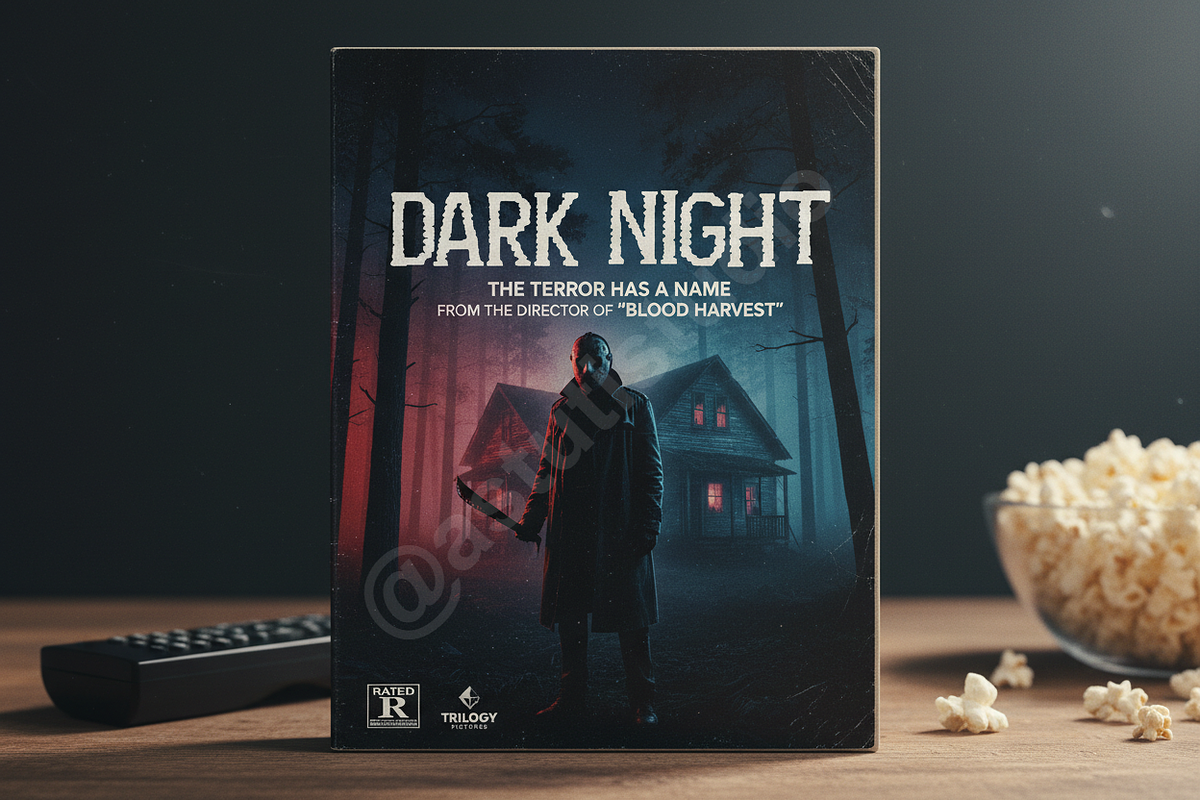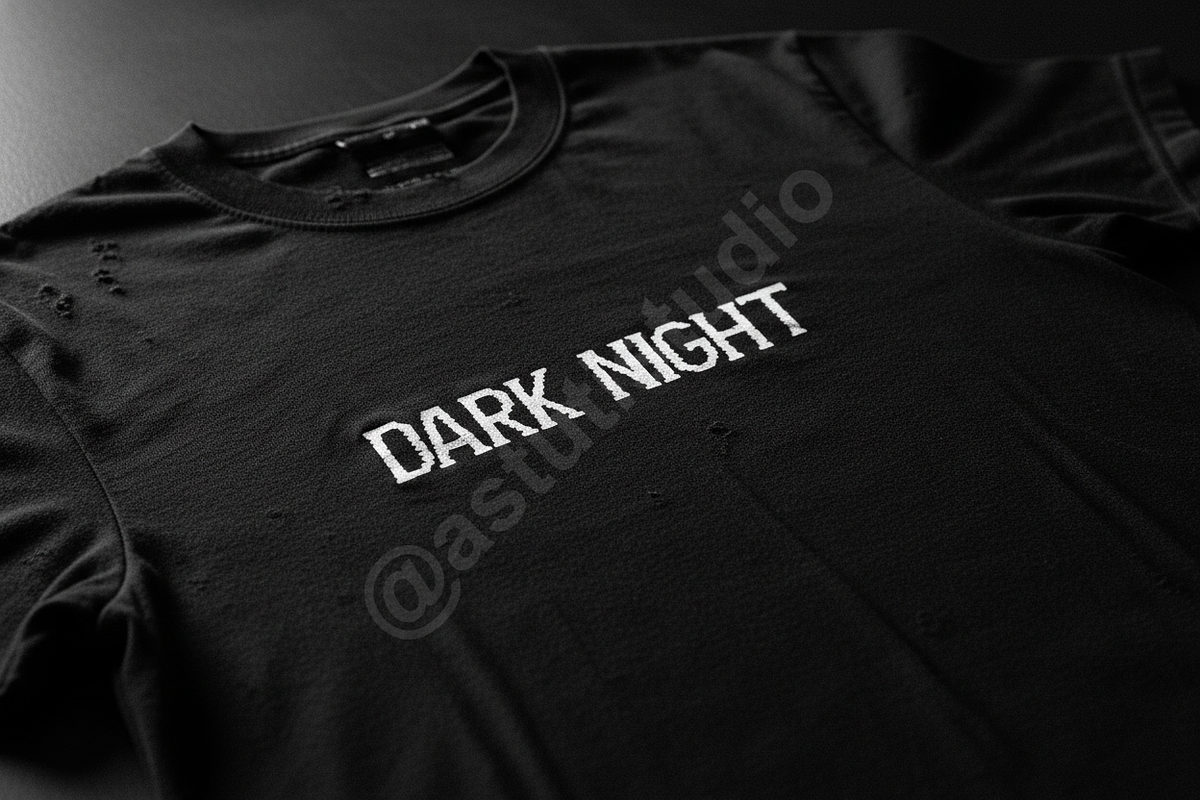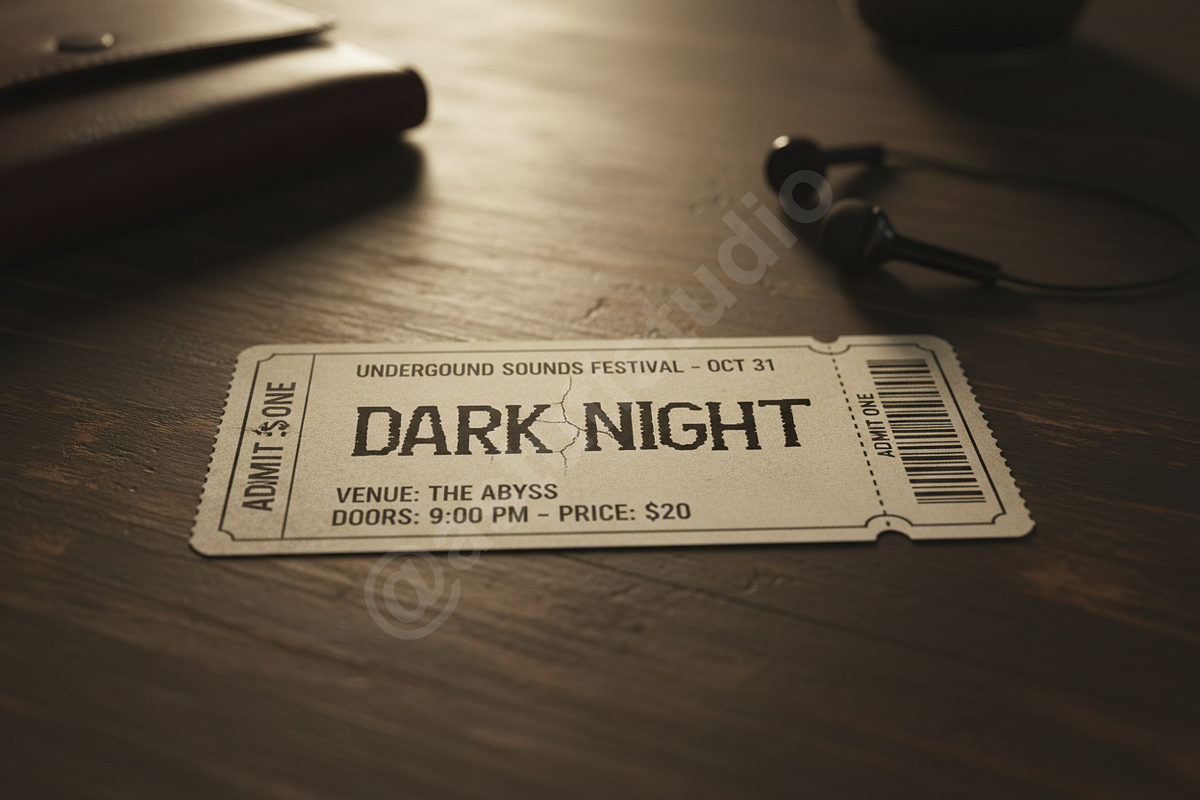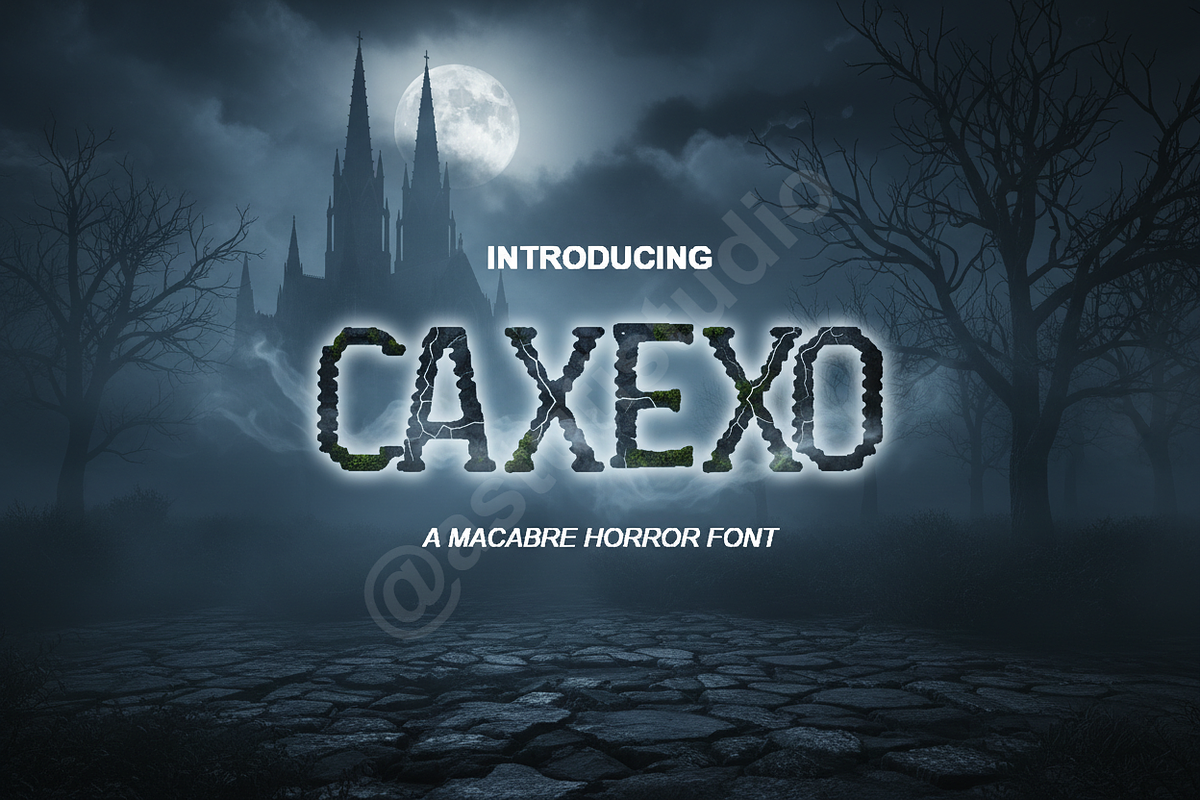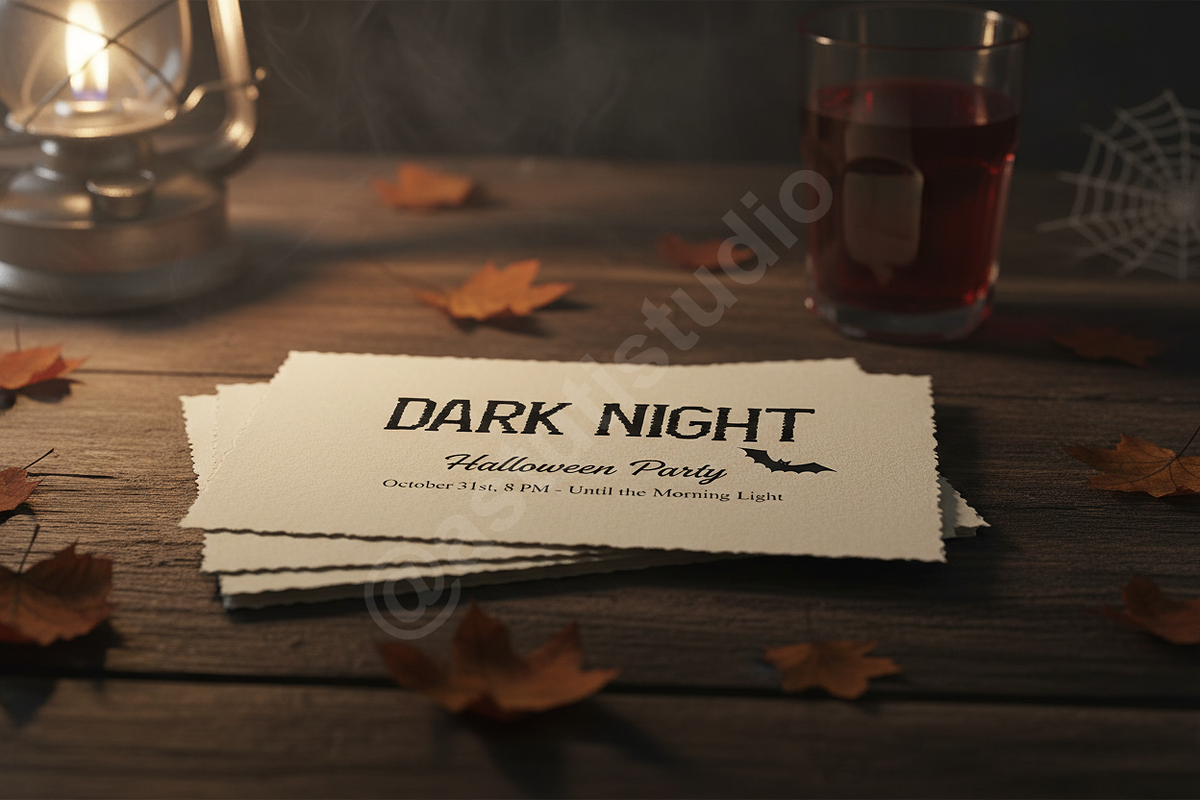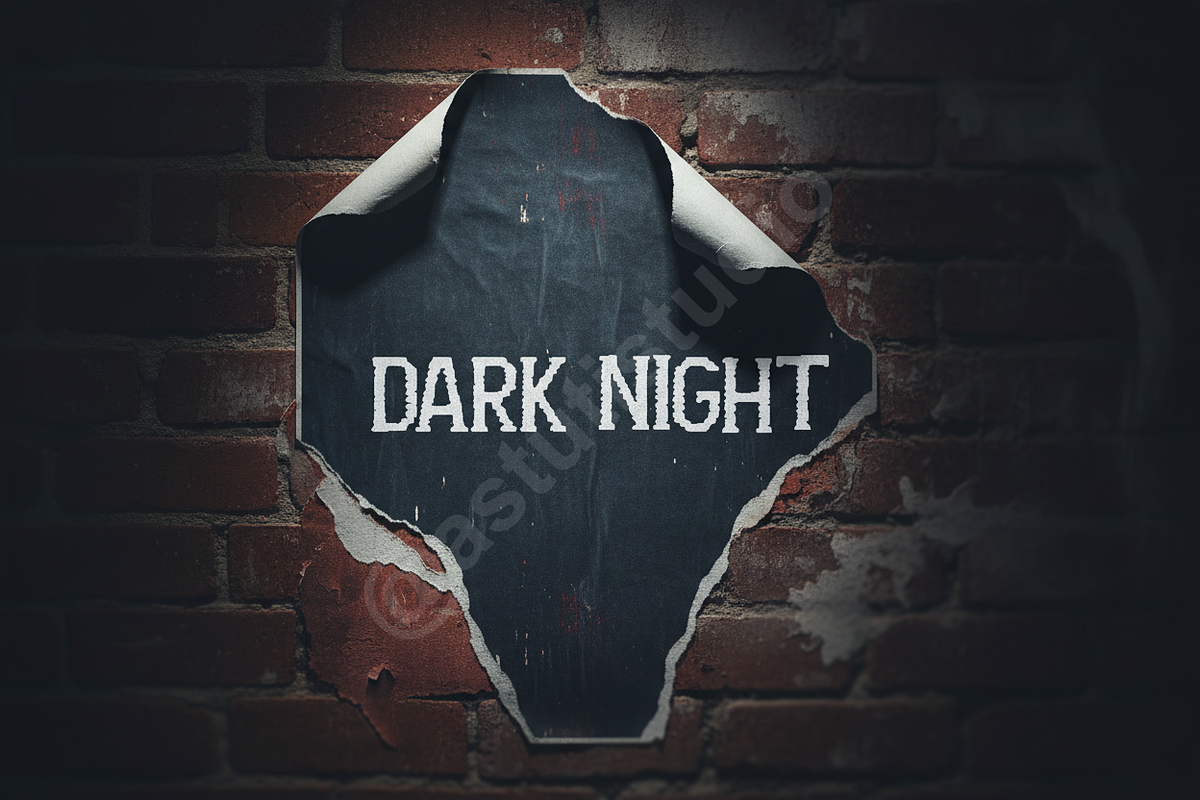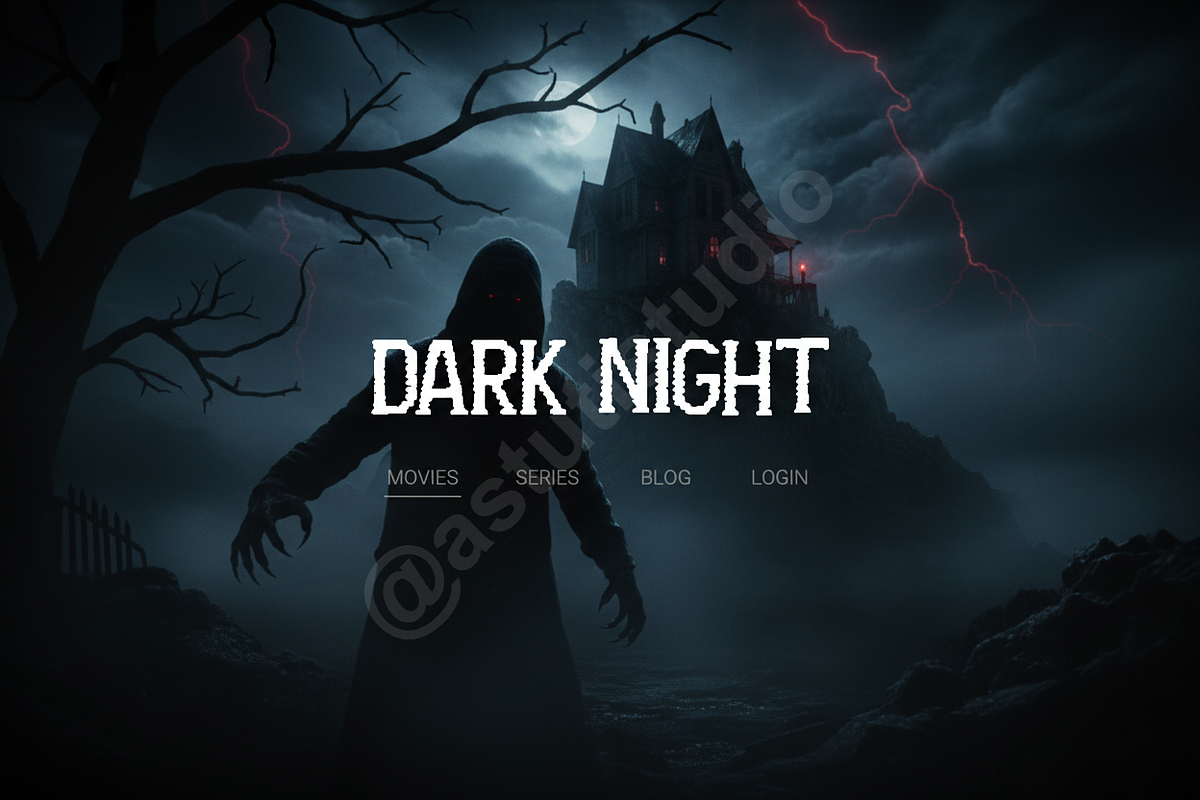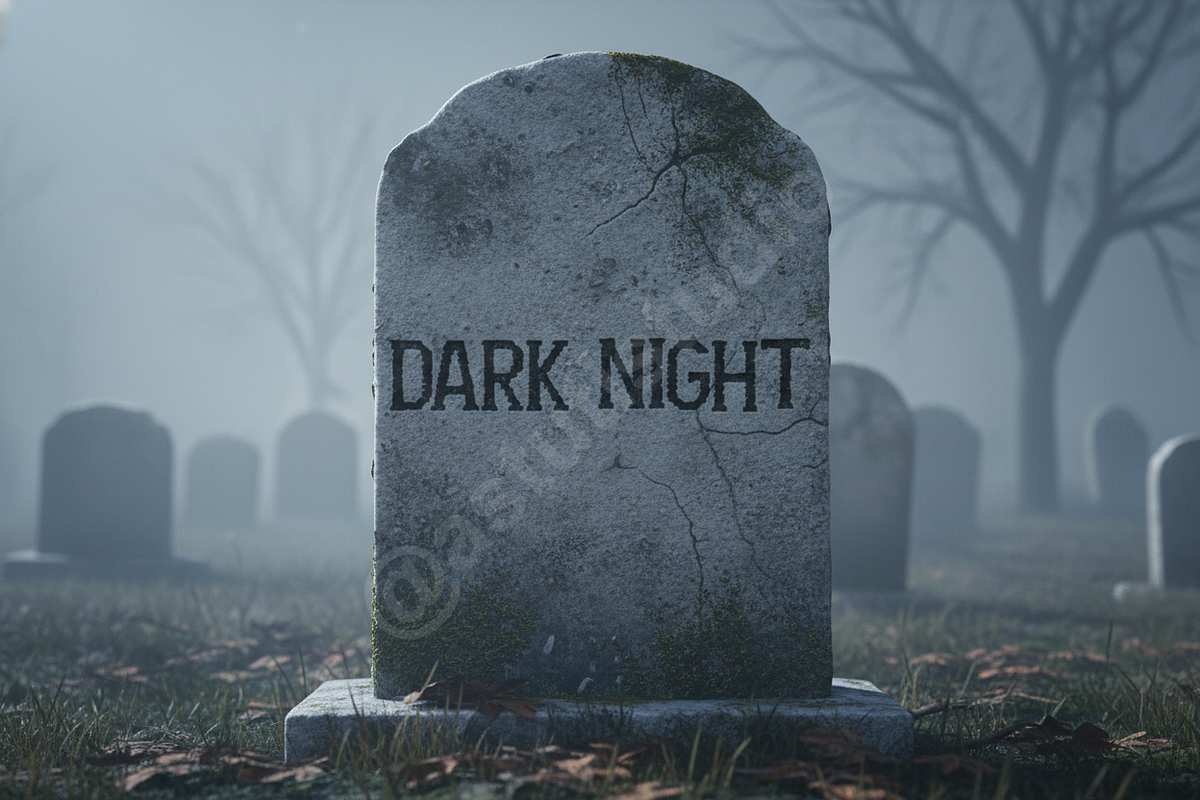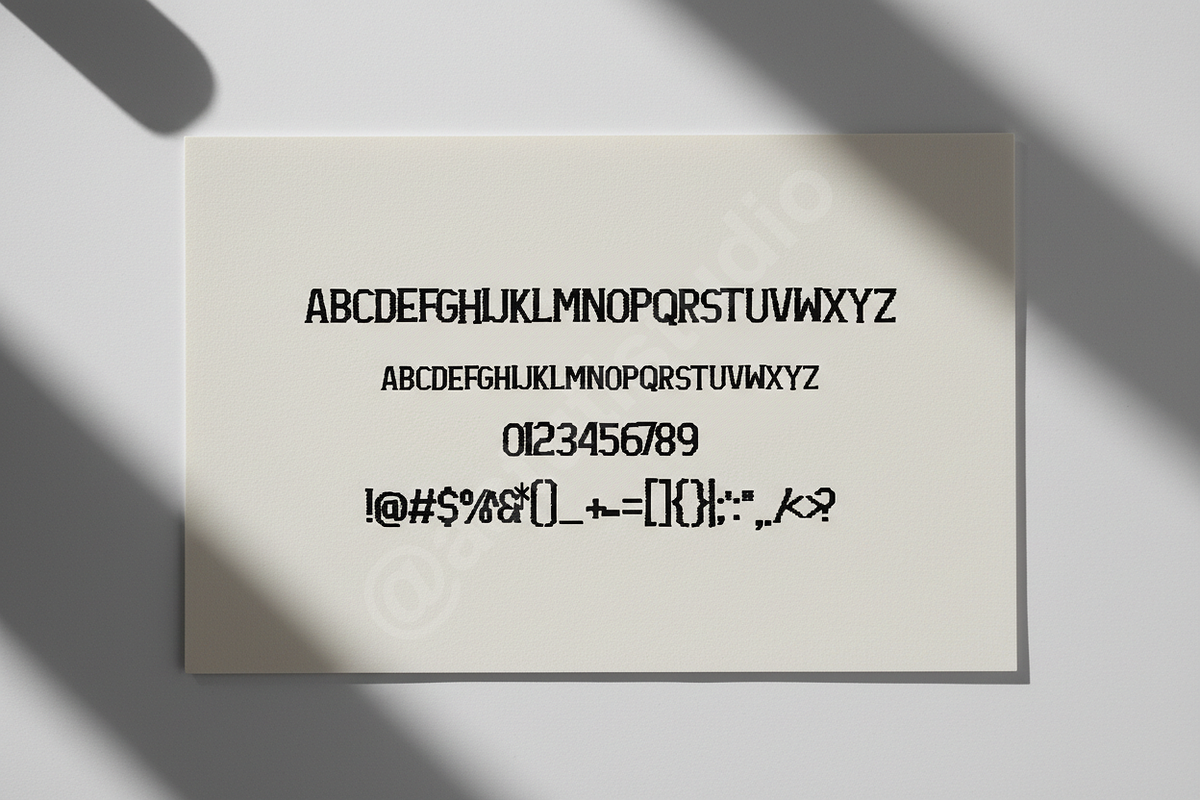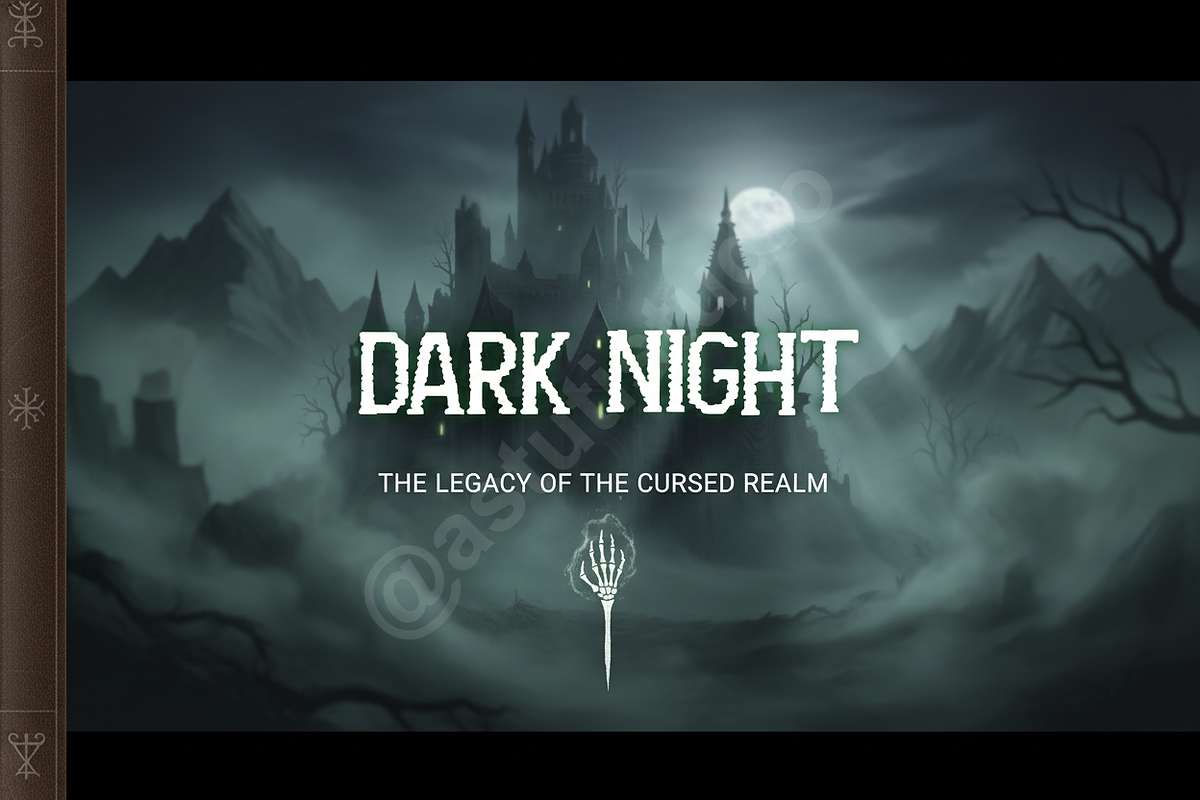
Caxexo: Elegant High-Contrast Serif
Caxexo is a sophisticated, high-contrast serif typeface designed for discerning creatives seeking timeless elegance. Its precise curves, delicate terminals, and commanding vertical stress capture the essence of luxury, making it the definitive choice for projects demanding refinement and prestige. Caxexo bridges classic editorial style with modern display confidence, ensuring your design work holds gravitas across all platforms, from glossy print to dynamic social media campaigns.
KEY FEATURES
- High-Contrast Display and Weight Versatility
- Stylistic Alternates, Ligatures, and Swash Details
- Full Multilingual Support (Western, Central, and South-Eastern European Languages)
- Punctuation, Numerals, and Extensive Glyph Set
- Optimized Kerning for seamless headline setting